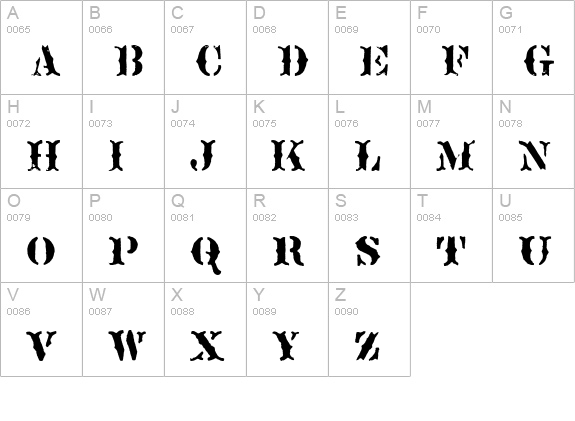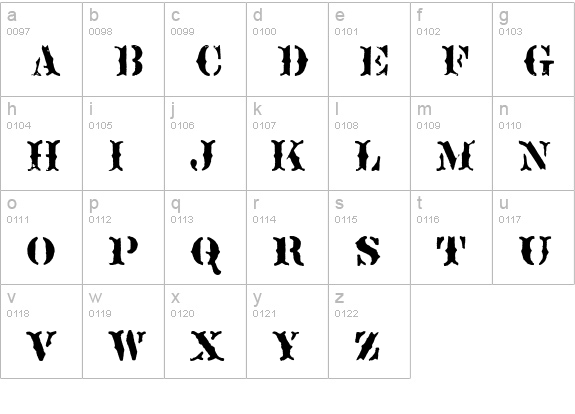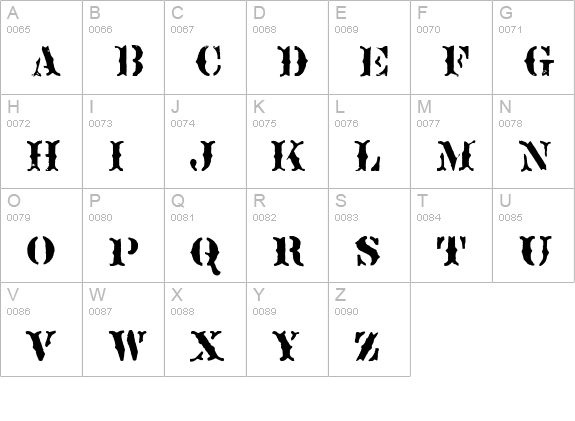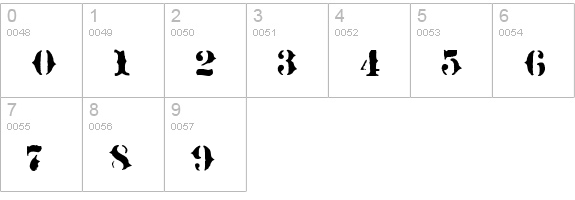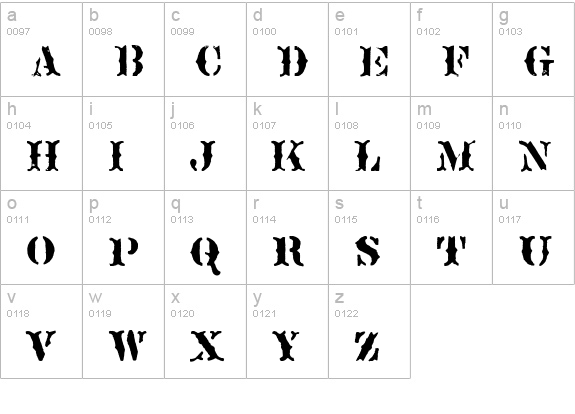
Sideshow Font Details
Sideshow font is a vibrant and playful typeface that captures the spirit of the circus and carnival atmosphere. With its unique and eye-catching letterforms, Sideshow adds a touch of whimsy and excitement to any design project. Whether used for posters, invitations, or social media graphics, this font is sure to grab attention and convey a sense of fun. What makes Sideshow font even more amazing is that it is available for free! Yes, you read that right – this fantastic font can be downloaded at no cost from FontsMarket.com. This means that you can bring the joy and energy of the carnival into your designs without breaking the bank. Designed with precision and creativity, Sideshow font offers a wide range of characters and ligatures, allowing you to create dynamic and engaging typography. Its bold and lively style is perfect for capturing the essence of a bustling circus, a thrilling sideshow, or even a child's birthday party invitation. Whether you are a professional designer or a hobbyist, Sideshow font is a must-have in your font collection. Its versatility and free availability make it an excellent choice for various design projects. So why wait? Head over to FontsMarket.com now and discover the wonders of Sideshow font – the font that brings the circus to life!